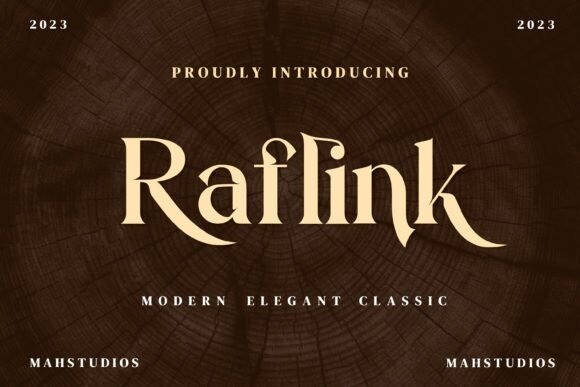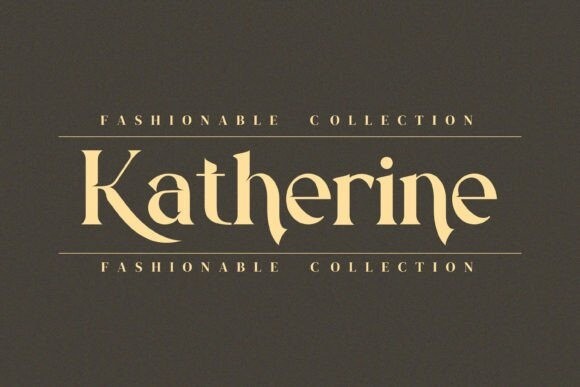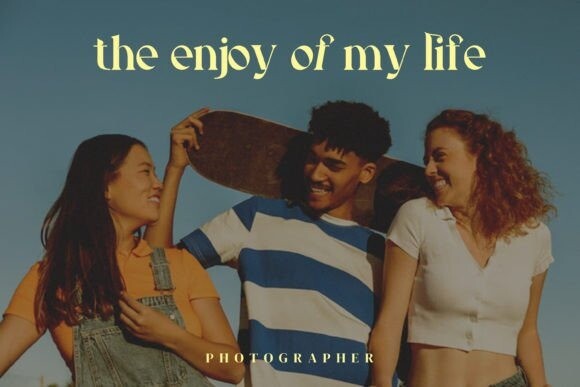
Raflink Font
Raflink is a stylish and elegant serif font. No matter the topic, this font will be an incredible asset to your fonts’ library, as it has the potential to elevate any creation. Raflink is PUA encoded which means you can access all the glyphs and alternates with ease!